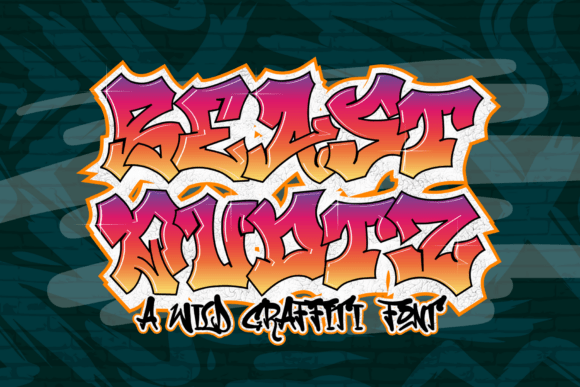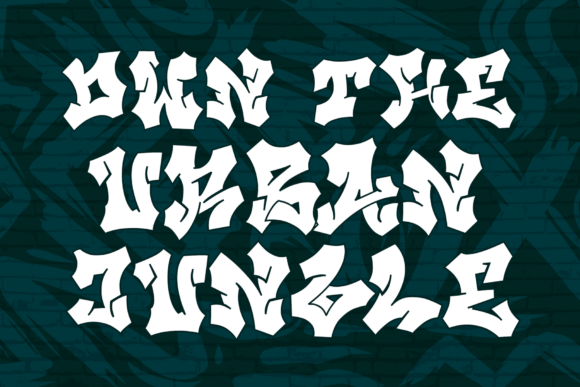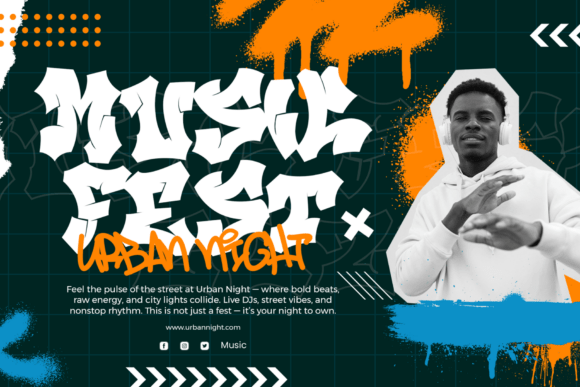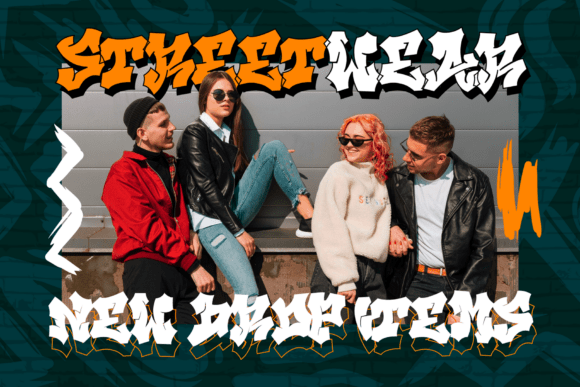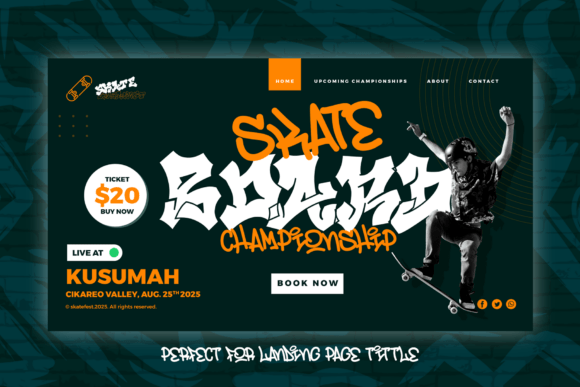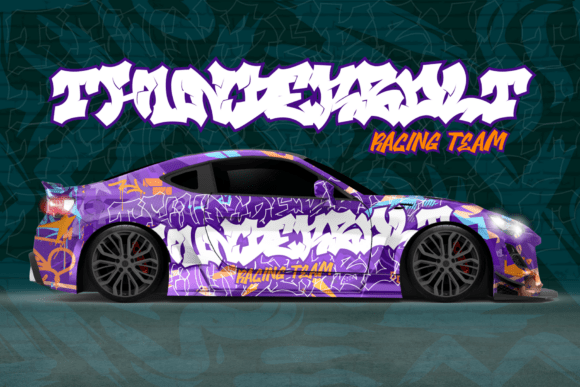
Unleash Urban Creativity with Beast Quotz Font
Immerse yourself in the energetic pulse of urban creativity with Beast Quotz, a raw and daring graffiti font that mirrors the unrestrained spirit of street culture. This bold font is designed to add a touch of rebellion and style to your projects, making it perfect for designers and crafters looking to make a statement.
Two Dynamic Styles to Fuel Your Creativity
Beast Quotz is available in two dynamic styles: Solid and Outline. The Solid style offers a bold and edgy look, while the Outline style provides a more subtle yet still striking appearance. This versatility allows you to choose the perfect style to match your project’s tone and aesthetic.
Bringing Life to Urban Projects
Beast Quotz breathes life into your audacious urban projects, edgy streetwear collections, pulsating hip-hop album covers, and electrifying extreme sports branding. Its spontaneous streak adds a touch of authenticity and attitude, making it perfect for projects that require a bold and daring look.
Beast Quotz is not just limited to digital projects. Its versatility makes it perfect for various crafting applications, including:
- Cricut and Silhouette projects: Add a touch of urban style to your cut-out designs and iron-on transfers.
- T-shirts and apparel: Give your designs a bold and edgy look that’s sure to turn heads.
- Posters and flyers: Create eye-catching promotional materials that demand attention.
- Stickers and decals: Add a touch of rebellious style to your adhesive designs.
- Digital crafts: Use Beast Quotz to add a graffiti touch to your digital art, graphics, and illustrations.
Beast Quotz is designed to be user-friendly, making it accessible to designers and crafters of all skill levels. Its layered font effects and rebellious design twist make it easy to incorporate into your projects, even if you’re new to working with fonts.
Adding Attitude to Your Designs
If your projects are begging for a graffiti touch, layered font effects, or a rebellious design twist, Beast Quotz is ready to scream style into every corner of your creations. Its bold and daring appearance is sure to add attitude and edge to your designs, making them stand out in a crowded creative landscape.
Key Features of Beast Quotz Font
- Raw and daring graffiti font
- Available in two dynamic styles: Solid and Outline
- Perfect for urban projects, streetwear collections, hip-hop album covers, and extreme sports branding
- Suitable for Cricut, Silhouette, and other crafting applications
- Easy to use and incorporate into your designs
- Layered font effects and rebellious design twist
| Font Name | Beast Quotz Font |
| Author | sipanji figuree |
Beast Quotz Font is a powerful tool for designers and crafters looking to add a touch of urban style and rebellion to their projects. Its bold and daring appearance, versatility, and ease of use make it perfect for a wide range of creative applications. Whether you’re working on a streetwear collection, hip-hop album cover, or digital craft, Beast Quotz is sure to bring your designs to life and make them stand out in a crowded creative landscape.